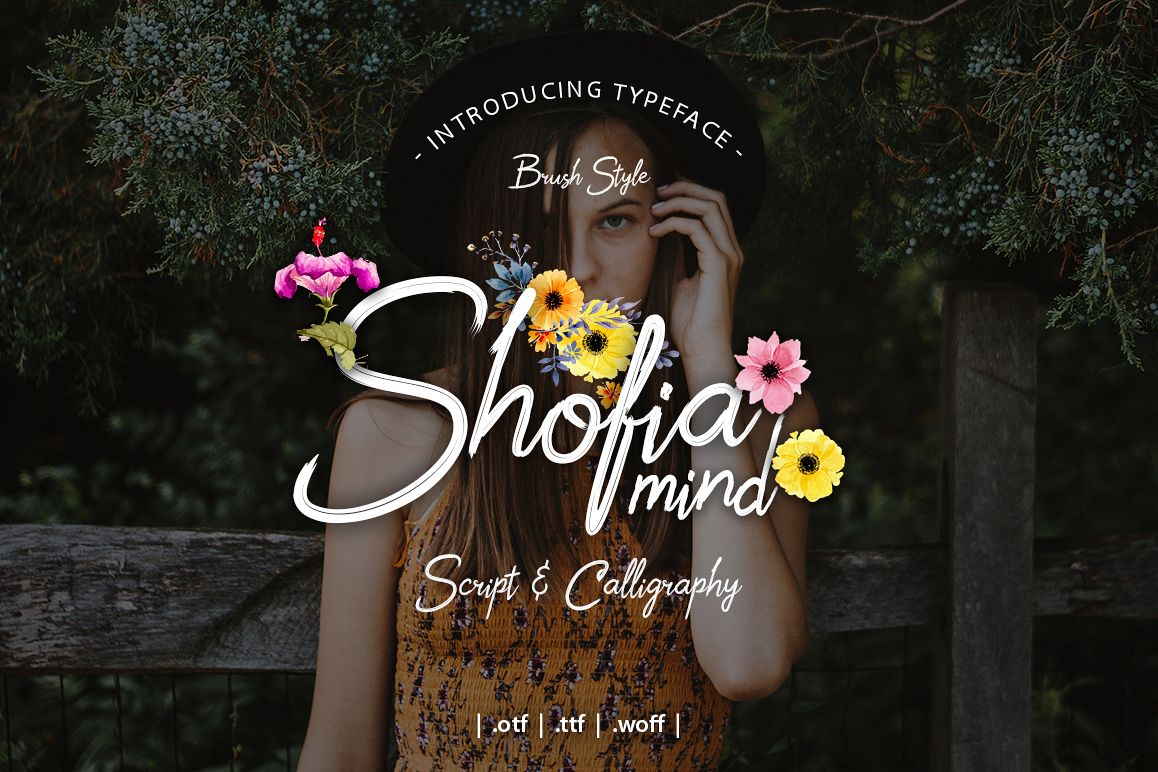
Shofia Mind Script Font
Shofia Mind Script is a stylish calligraphy font that features a varying baseline, smooth line, classic and interesting touch. Can be used for various purposes. such as headings, signature, logos, posters, t-shirt, signage, lable, wedding invitation, badges etc.